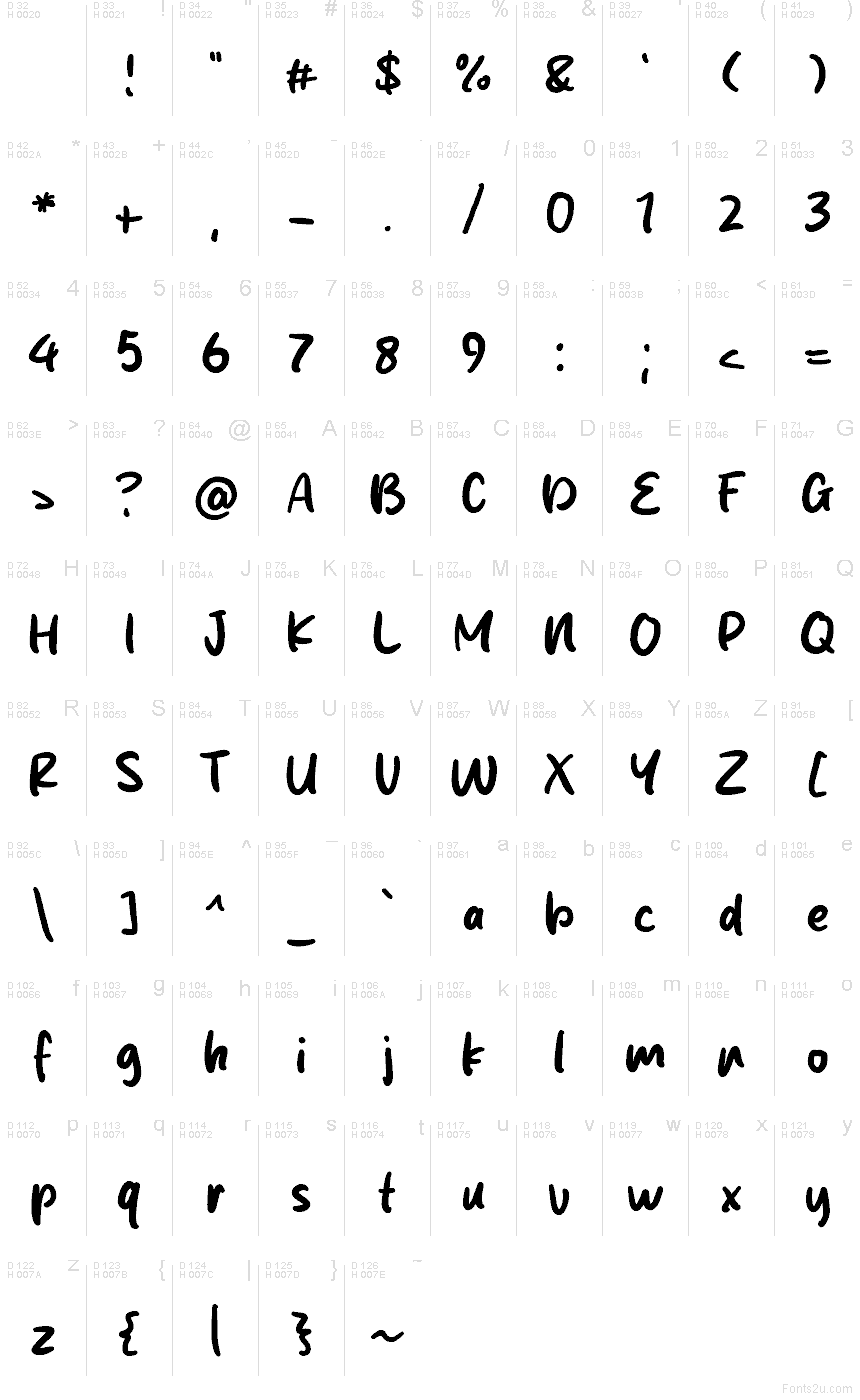
Raw Milk, created by MJType, is a free handwritten font with broad, inky strokes and an easygoing, oversized silhouette. Its uneven widths, rounded turns, and compressed joins give the letters the lively pace of quick marker lettering.
Food, music, and youth culture offer a natural setting for its casual shapes, especially on dairy packaging, cafe branding, and festival posters. It also suits cheerful merchandise graphics. In publishing, the irregular forms can make a magazine cover line feel drawn into the artwork rather than added as neutral type.